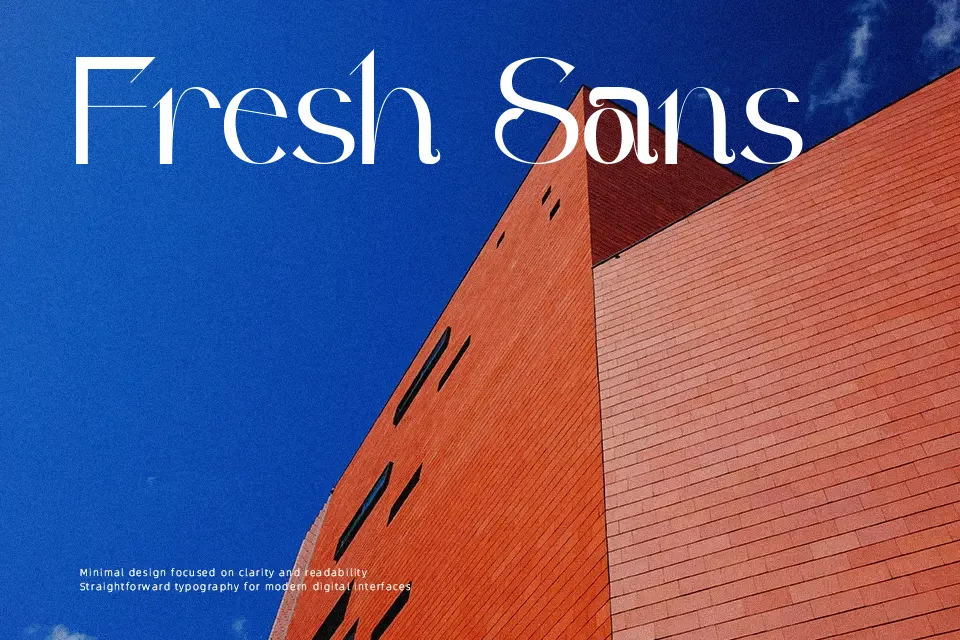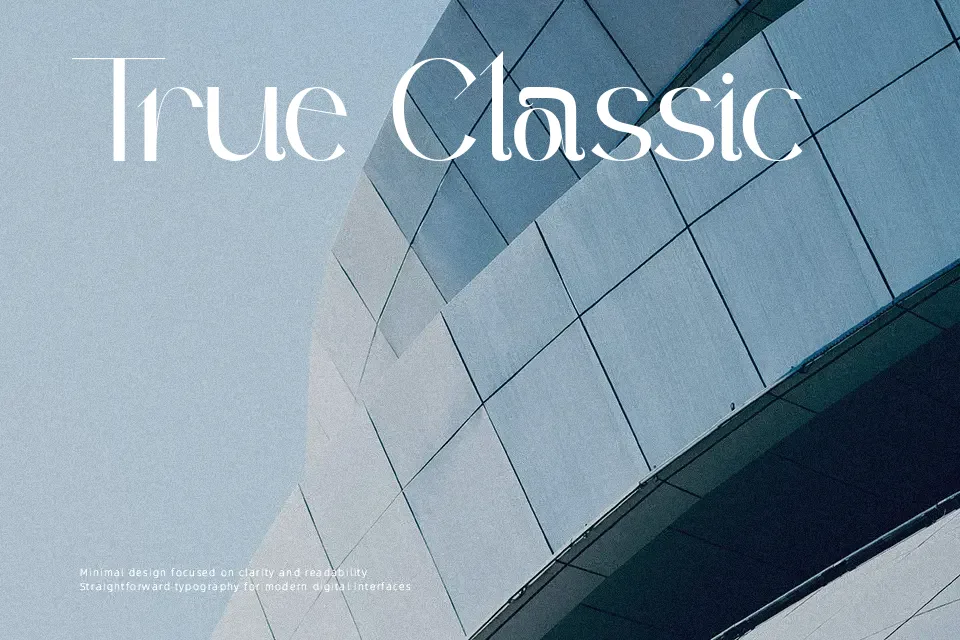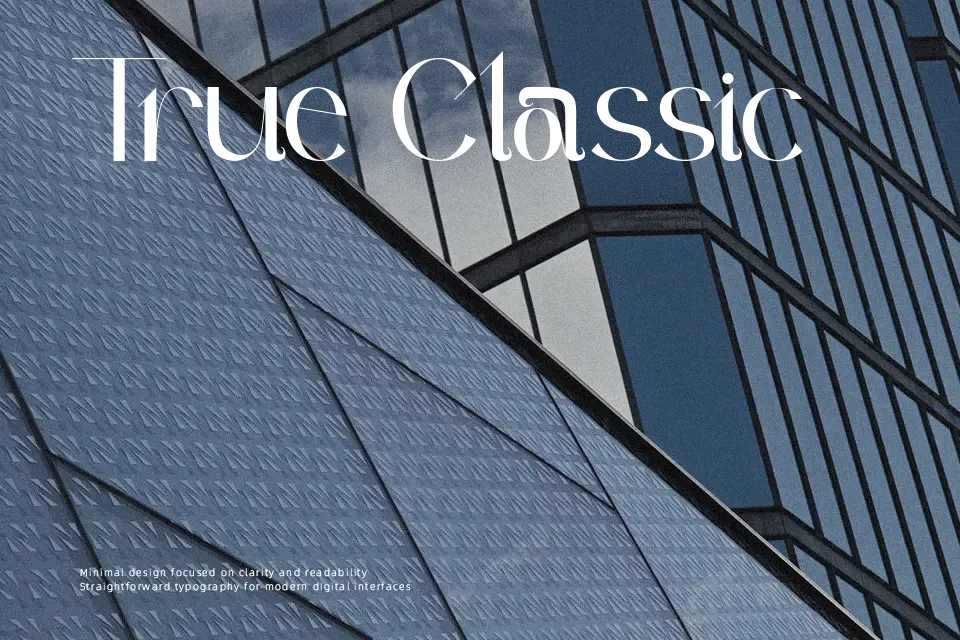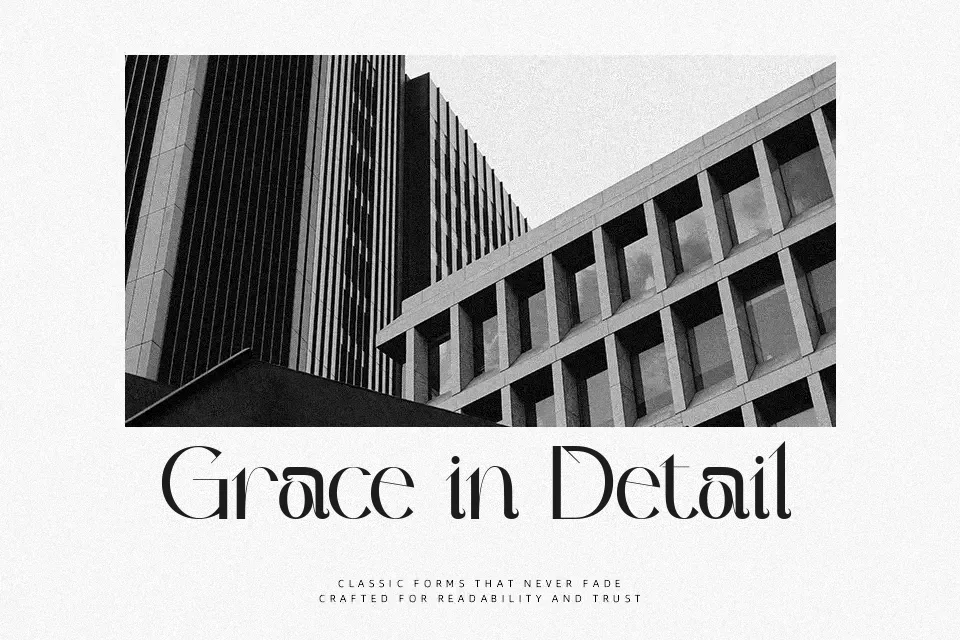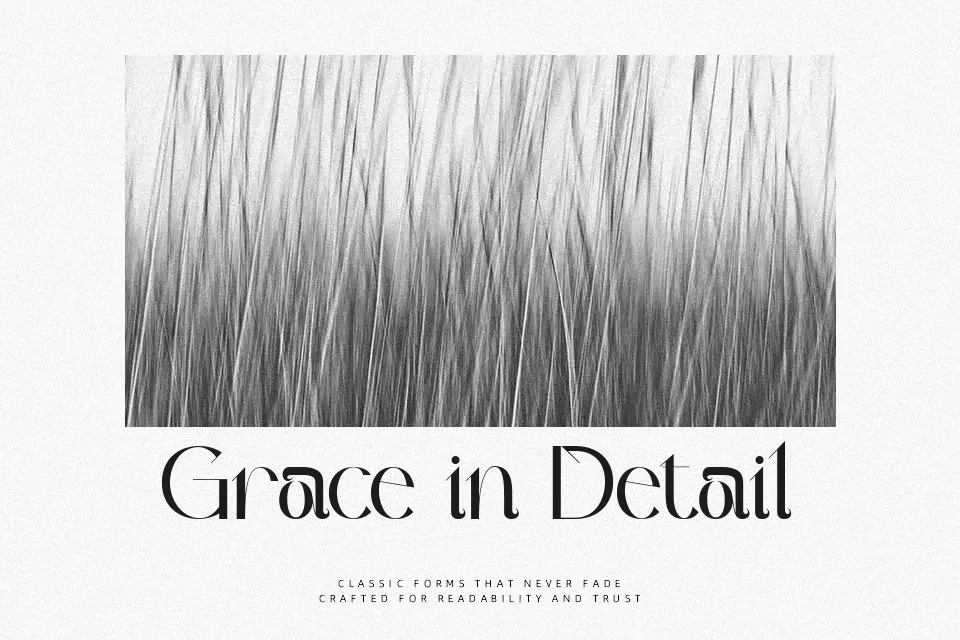
Quater Elegant Font
Quater Elegant Font introduces a polished, high-contrast structure that instantly elevates luxury design projects. The letterforms display a beautiful balance of thick and thin strokes, creating a sophisticated rhythm across headlines and large branding elements. Its meticulously crafted terminals and smooth curves reflect a modern approach to classic typography. The spacing helps maintain clarity in larger headlines, giving logos and magazine covers a commanding yet graceful presence. However, the delicate contrasting strokes and decorative details become less effective at smaller sizes, reducing continuous reading comfort. This typeface performs best when displayed at larger scales, where its elegant characteristics can be fully appreciated without compromising legibility.
luxury cosmetic packaging
high-end fashion magazine covers
boutique hotel branding
elegant website hero headlines
spreadsheet data
Perfect for branding, editorial, and fashion, with a elegant and display style.